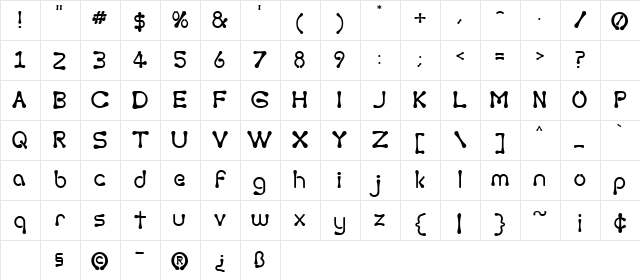
Torcing Away Regular
Complete Torcing Away Regular glyph index. Displaying only characters natively supported by Torcing Away Regular font.
Design Context for Torcing Away
Torcing Away is a composed and adaptable typeface that performs quietly and consistently across a wide range of design contexts.